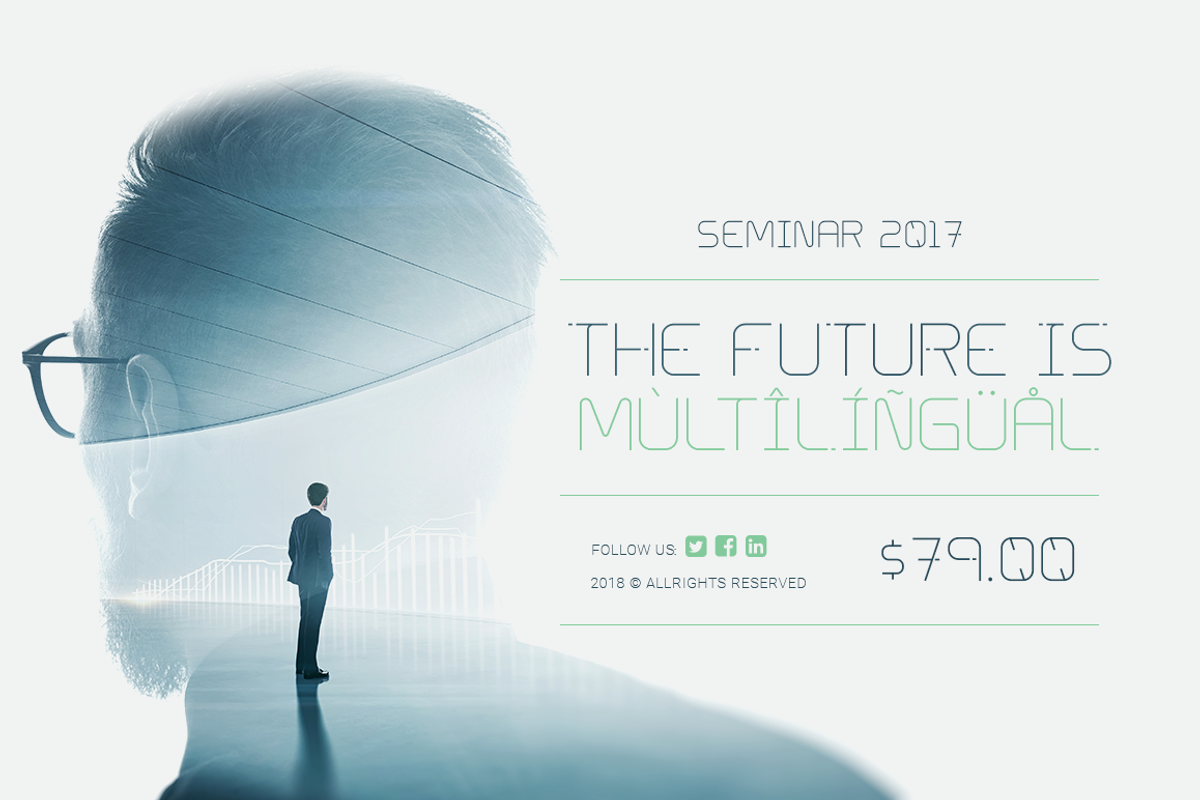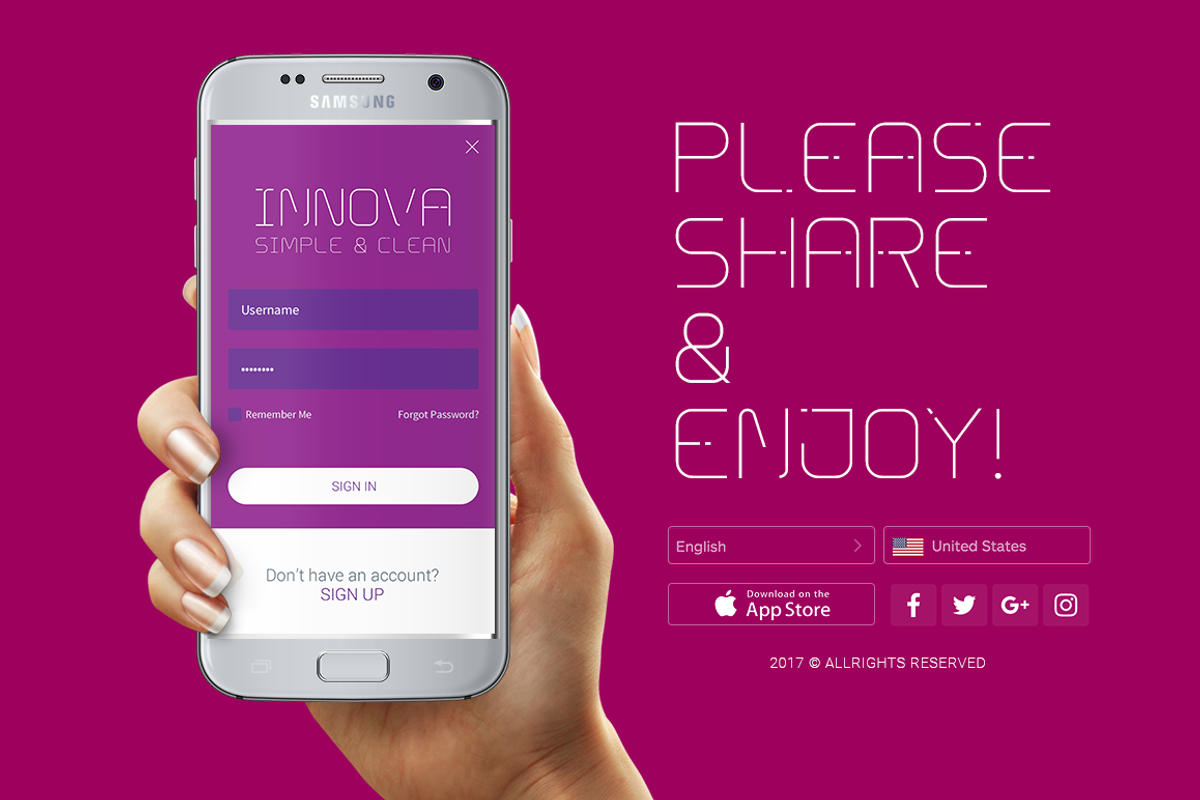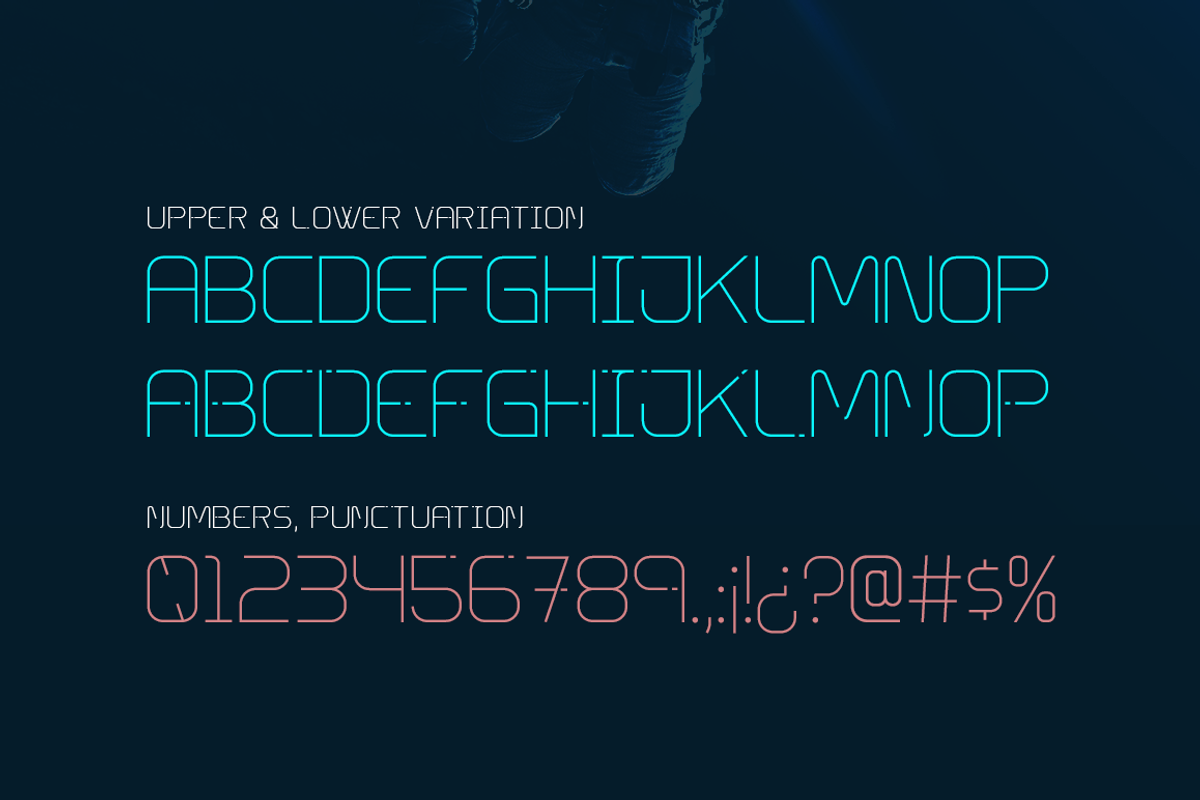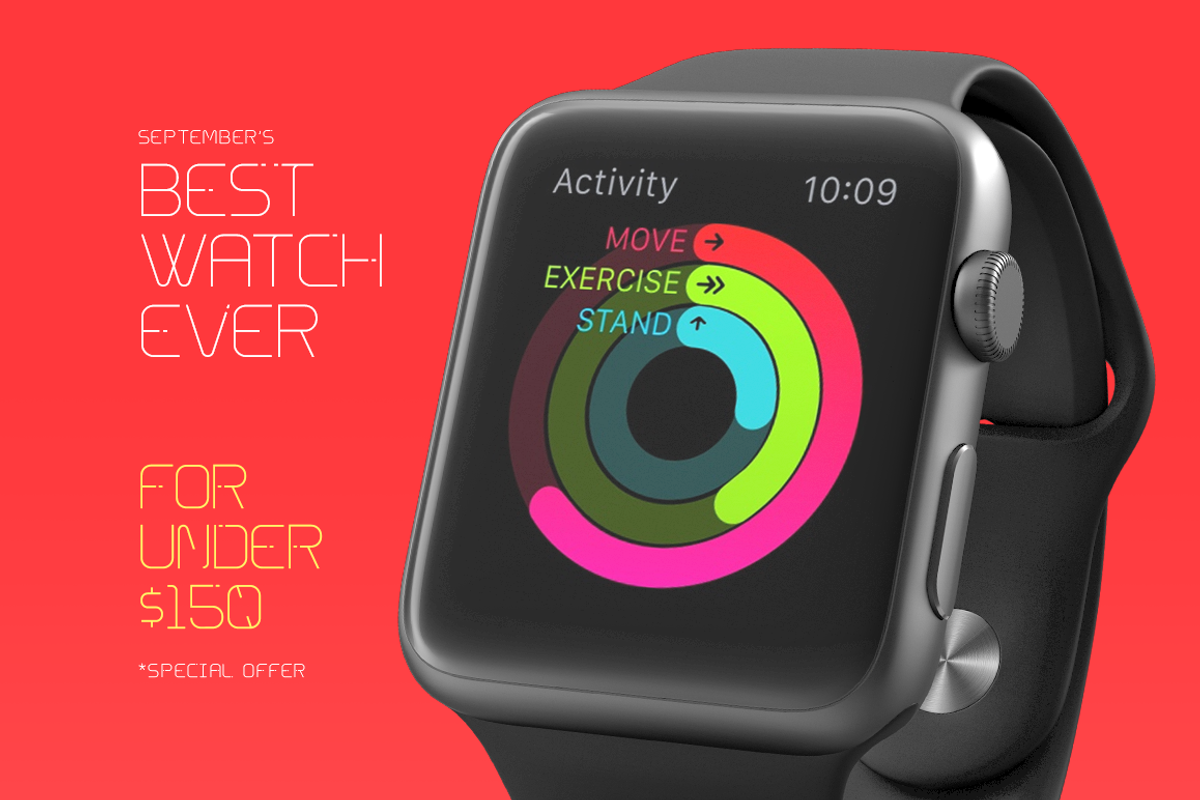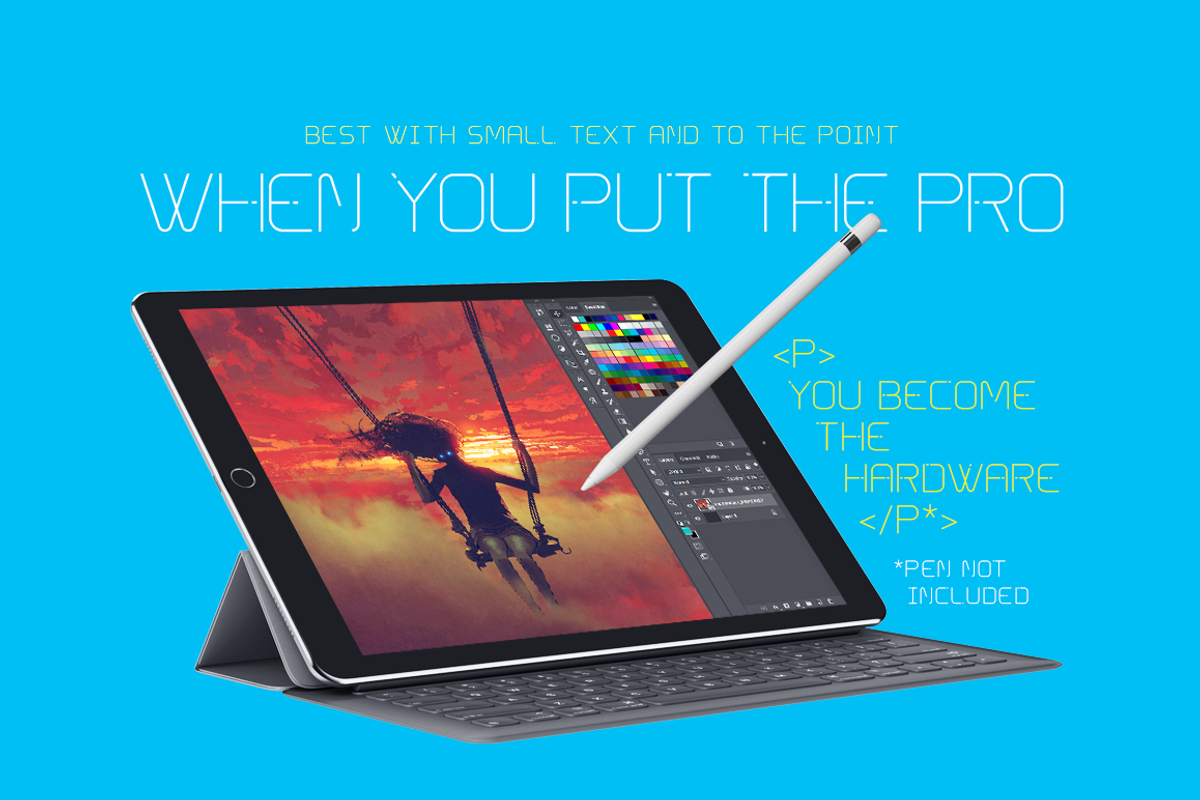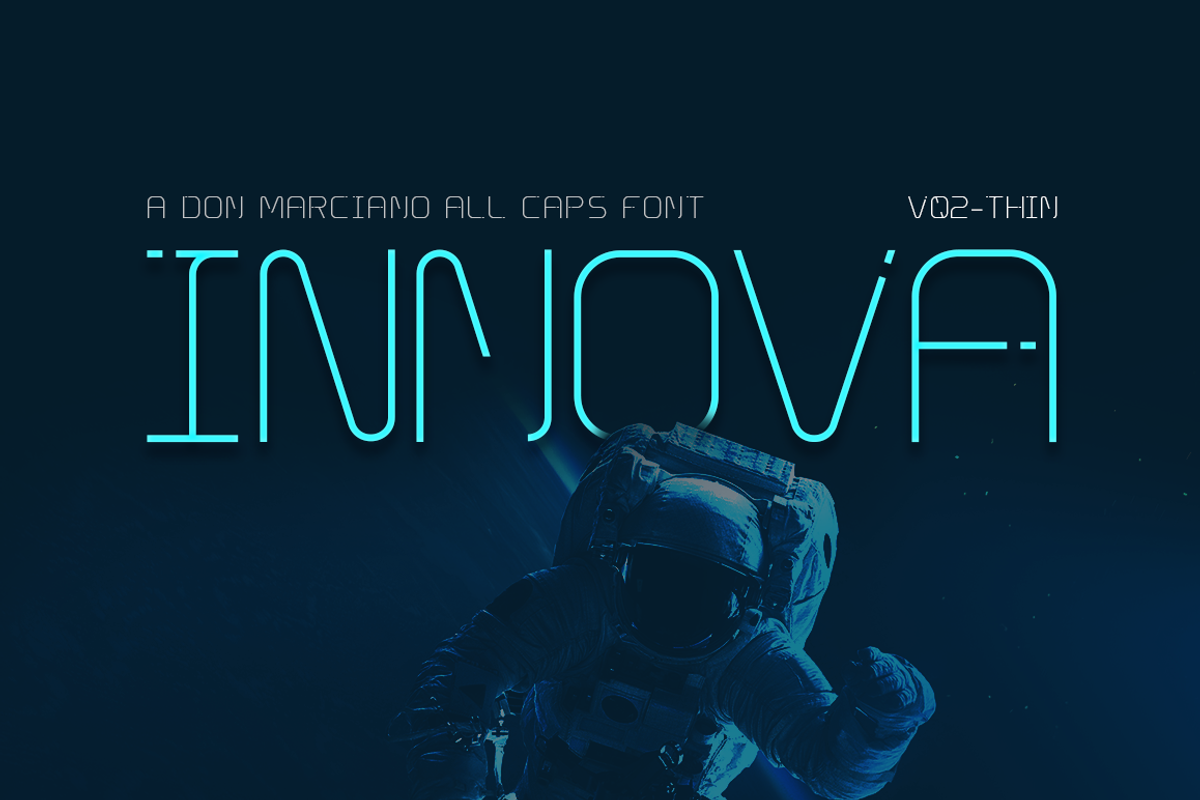
Innova - Thin Font
Innova is a futuristic thin weight font, created to be the official font for a week long event called “Innovation Week” that expanded through 3 cities and more than 5,000 confirm attendees. Its purpose is to translate the unstoppable course of time and how innovation is taking over all facets of our day to day, the choices made today will inevitably impact our future, we can try and make that impact to be a positive one.